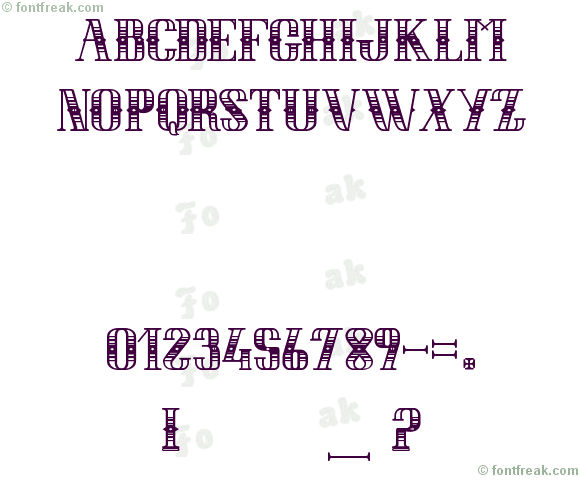
LEBALDESCOCHONNES
LEBALDESCOCHONS
LEBALDESCOCHONNES by Maelle.K is a striking display font that blends playful charm with eye-catching design. This decorative typeface features bold, thick strokes complemented by intricate details, creating a unique visual impact. The font showcases a whimsical character with its distinctive patterns and playful spacing, making it a standout choice for various creative projects. The contrast between the heavy letterforms and the decorative elements adds a layer of sophistication while maintaining an inviting aesthetic.
This font is particularly well-suited for a variety of applications. It's an excellent choice for wedding invitations, where its whimsical style can evoke a sense of joy and celebration. Additionally, LEBALDESCOCHONNES shines in restaurant menus, offering a fun yet stylish way to present food items. Movie posters can also benefit from this font's bold presence, capturing attention and setting an engaging tone. Furthermore, it can be used effectively in social media graphics, allowing content creators to add a unique flair to their posts.
In a crowded marketplace of typefaces, LEBALDESCOCHONNES stands out for its playful yet sophisticated design. Its distinctive character and versatility make it an essential addition to any designer's toolkit. Whether you're crafting invitations, promotional materials, or digital content, the LEBALDESCOCHONNES font free download offers a delightful way to elevate your work and captivate your audience.